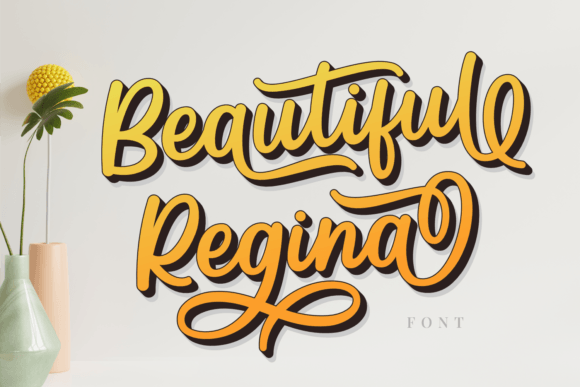
Unleash the captivating magic of Beautiful Regina, a mesmerizing script font that will transform your creative visions into extraordinary realities. This exquisite font dances across your screen like a delicate melody, inviting you to embark on a journey of boundless creativity.
With its graceful curves and enchanting swashes, Beautiful Regina adds a touch of elegance and romance to any design project. Envision your wedding invitations adorned with Beautiful Regina's enchanting script, exuding a timeless allure that captures the essence of love and commitment.
Step into the world of fashion and elevate your designs with Beautiful Regina's stylish flair. Create lookbooks that exude sophistication and grace, showcasing your garments with an air of exclusivity. Embrace the power of branding and craft logos that radiate a sense of luxury and refinement, leaving an unforgettable impression on your clients.
Beautiful Regina is the perfect companion for greeting cards, adding a heartfelt and personal touch to your expressions of love, friendship, and gratitude. Let your messages flow effortlessly from your heart onto the page, enveloped in the beauty of this elegant script.
Explore the realm of marketing promotions with Beautiful Regina as your creative ally. Design promotional materials that captivate and engage your audience, leaving them mesmerized by the font's charm. With its versatility, Beautiful Regina seamlessly adapts to a myriad of design styles, from classic and timeless to modern and edgy.
Unleash your creativity and embark on a journey of artistic exploration with Beautiful Regina. With its PUA encoding, accessing the font's extensive glyphs and ligatures is a breeze, opening up endless possibilities for customization and personalization.